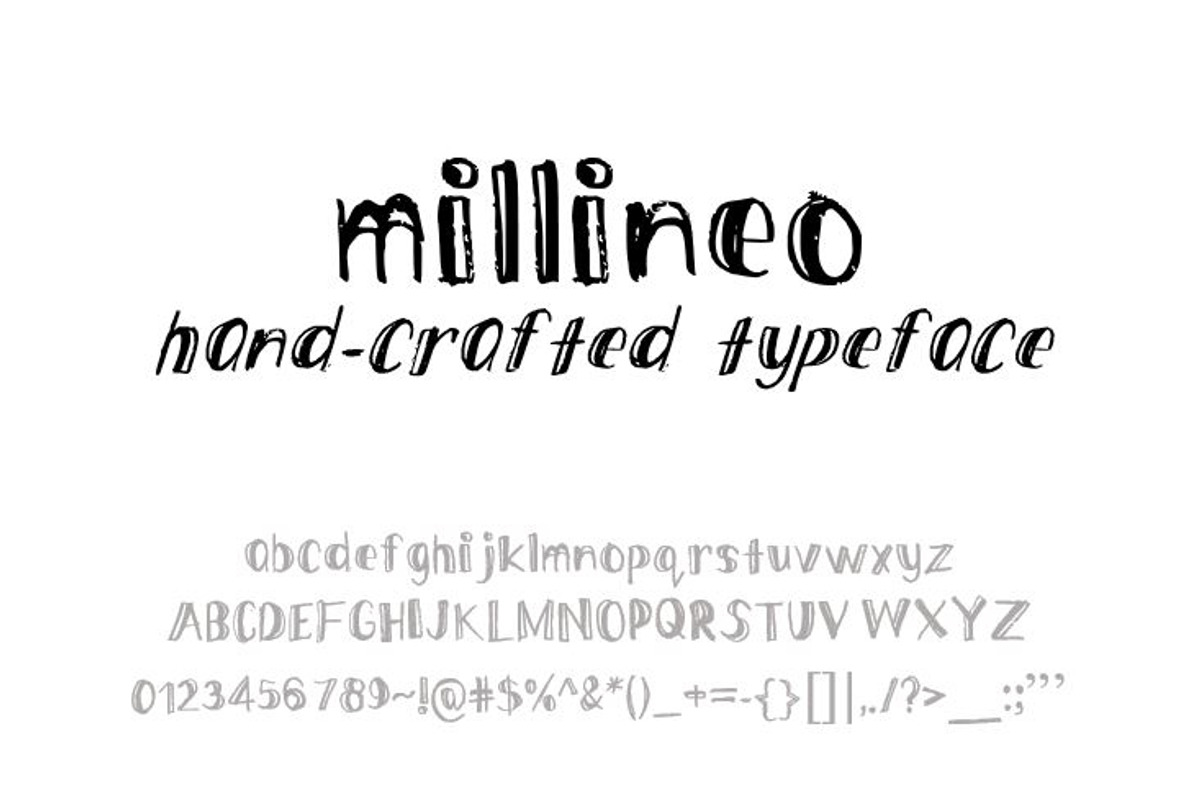
millineo font
millineo font by jatho is a font selected for branding, posters, packaging, typography.
- It comes with uppercase, lowercase, numerals, punctuations.
Why millineo font is worth a look
millineo font by jatho fits naturally into Branding, posters, packaging, typography.